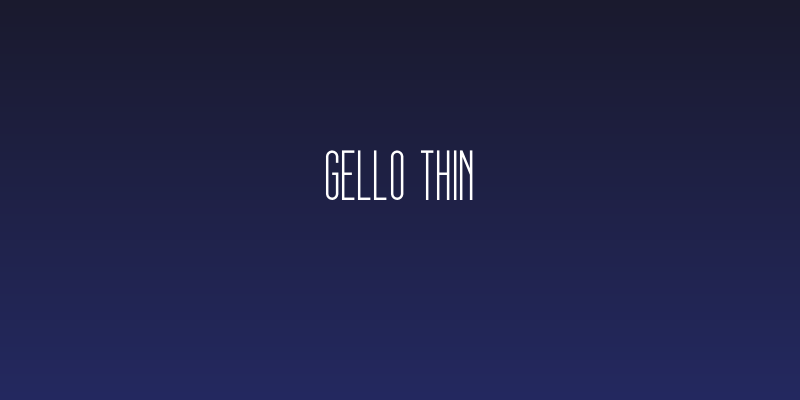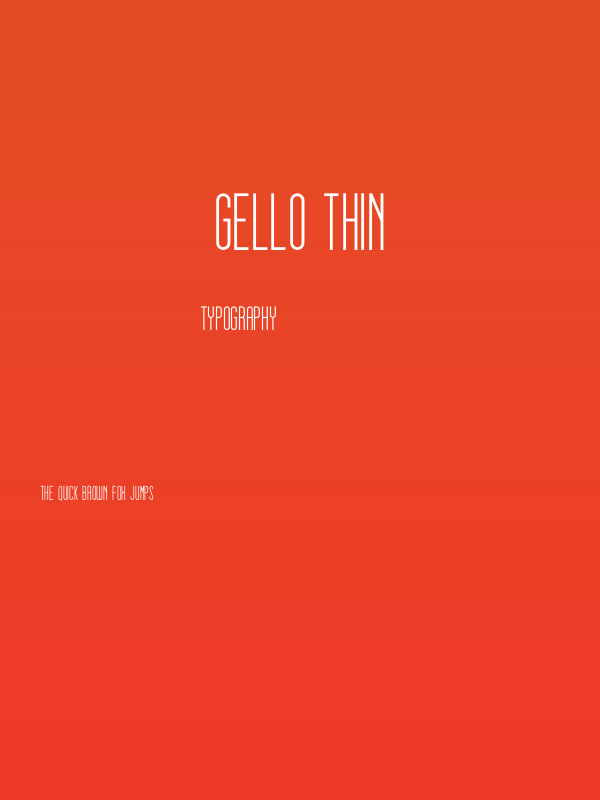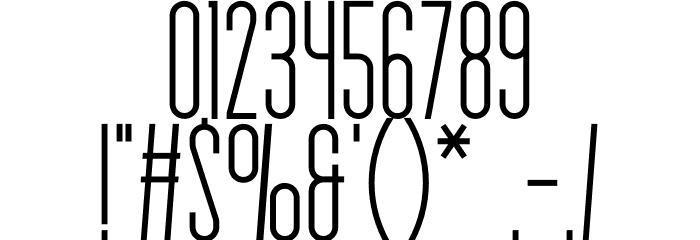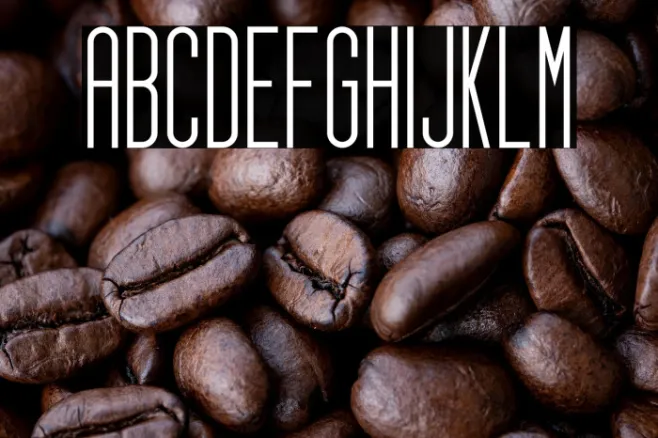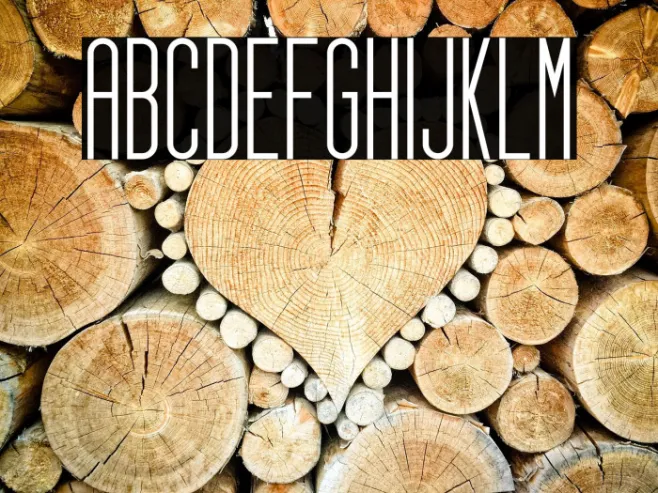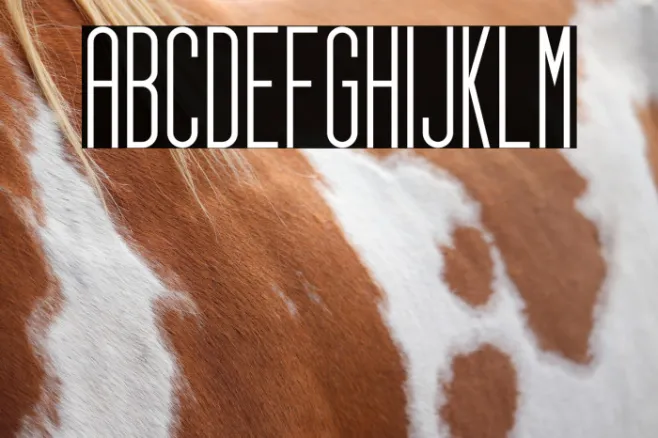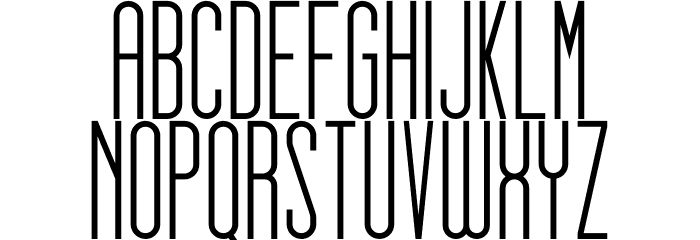
gello thin Font
gello thin Description
This font features an ultra-thin, elongated design with a modern and sleek appearance. The characters are tall and narrow, creating a sophisticated and elegant look. The uppercase and lowercase letters maintain a consistent height, contributing to a uniform and clean aesthetic. The numerals and special characters follow the same thin and elongated style, ensuring visual harmony across all elements. This font's minimalist design makes it suitable for contemporary projects where a refined and stylish impression is desired.
| Proposed Projects | Ideal for fashion magazines, luxury branding, minimalist posters, and modern website headers. |